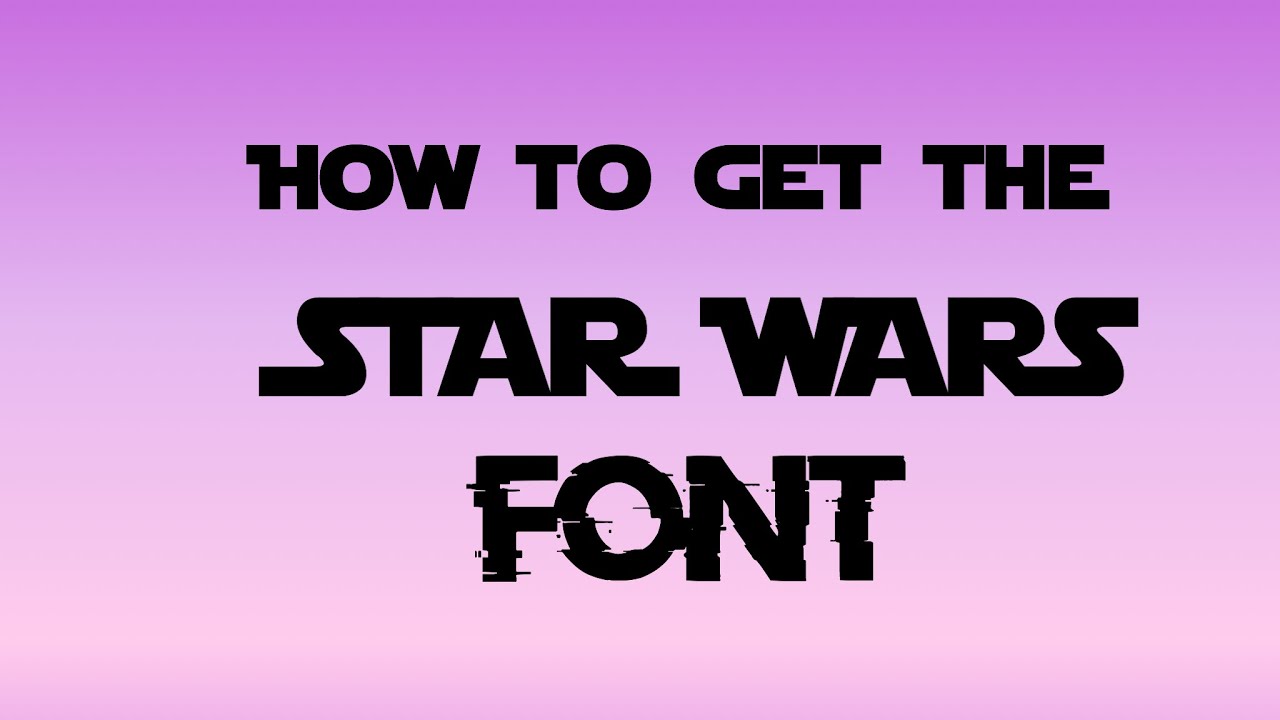
Star Jedi Font Dafont Star wars fonts are styled after the popular sci fi movie series. fans of star wars have recreated all the logo, text, and language styles used in the movies. use our free generator to create retro 1970s movie credits, jedi birthday cakes, or skywalker designs!. Use the text generator below to convert your text into graphics online with star wars font, you can then save the image or click on the embed button to get links to embed the image on the web. Download and install free star wars font family. this font is from star wars category and exclusively available at dafont free. Rice was passionate about creating the star wars font. she invested all her effort into making the font as universally familiar as the movie it belongs to. she customarily drew a neat, heavy font that has grown to be a logo for the star wars series as well as star wars characters.
Dafont Star Wars Font Download and install free star wars font family. this font is from star wars category and exclusively available at dafont free. Rice was passionate about creating the star wars font. she invested all her effort into making the font as universally familiar as the movie it belongs to. she customarily drew a neat, heavy font that has grown to be a logo for the star wars series as well as star wars characters. Download your favorite star wars themed font and bring the power of the force to your design projects. You can find a free star wars font on various platforms offering font downloads. many online font repositories provide an extensive selection of themed fonts for free. Free star wars fonts (.ttf & .otf). star wars available in windows and mac os x version. truetype and opentype fonts. search from a wide range of typography fonts. The rebellion font resembles the logo of disney lucasfilm animated show – ‘star wars rebels,’ large, banned letters with elements with philosophic corners and stoke with stylish nicks.
Dafont Star Wars Font Free star wars fonts (.ttf & .otf). star wars available in windows and mac os x version. truetype and opentype fonts. search from a wide range of typography fonts. The rebellion font resembles the logo of disney lucasfilm animated show – ‘star wars rebels,’ large, banned letters with elements with philosophic corners and stoke with stylish nicks.